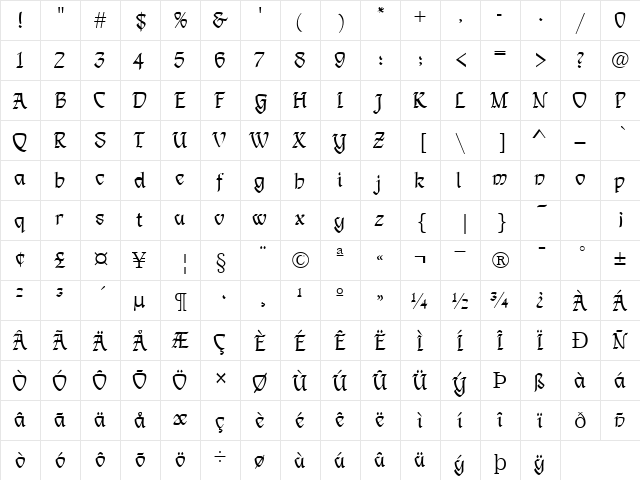
Linden Regular Font Preview
Linden Regular
Linden Regular Font Details
Design Context for Linden Typeface
Linden is a composed and adaptable typeface that performs quietly and consistently across a wide range of design contexts.